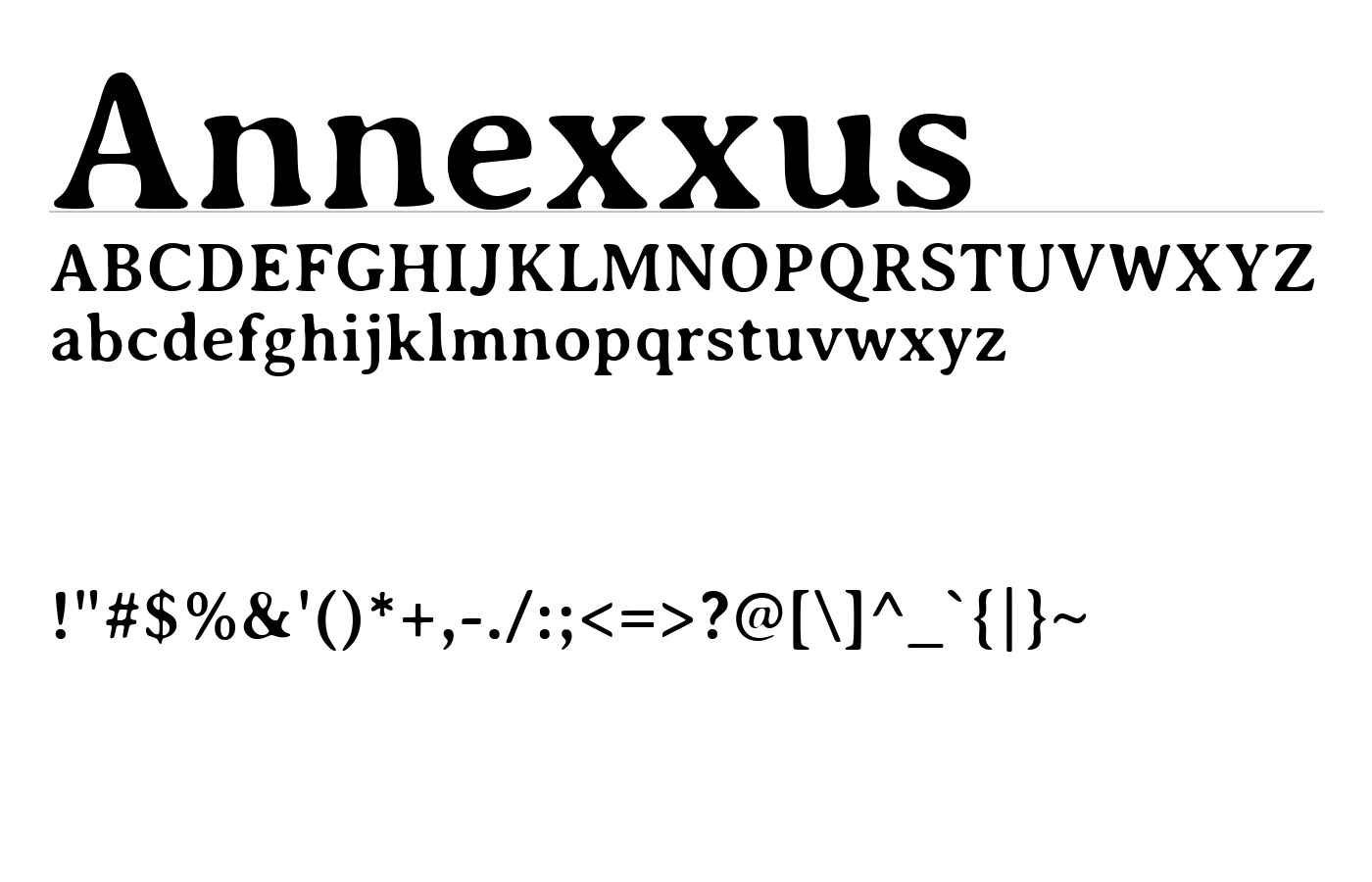
Annexxus is a serif font with a distinct old-style feel, featuring moderate stroke contrast and gently bracketed serifs that create a warm, approachable character. Its slightly condensed letterforms and medium x-height make it highly readable while lending a touch of classic sophistication, ideal for brands seeking a refined yet friendly appearance. This font works great for editorial use, book design, and elegant branding where a timeless, trustworthy impression is desired.
Annexxus Font
About Annexxus Font